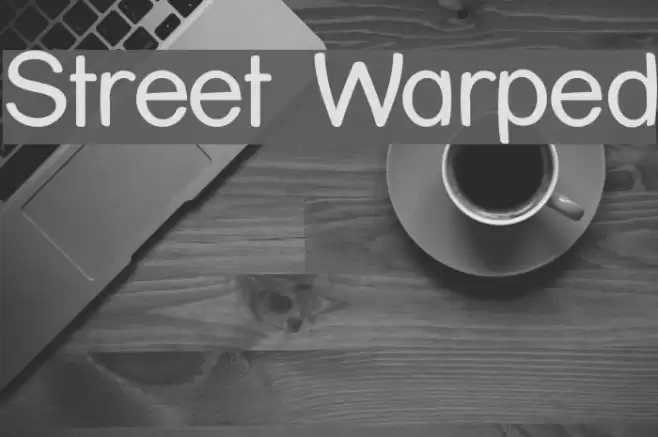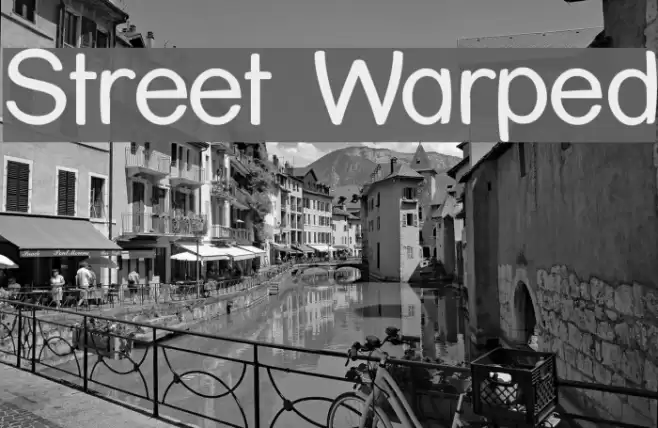
Street Warped Font
Street Warped Description
This font features a playful and rounded style, characterized by smooth curves and a friendly appearance. The letters are evenly spaced, providing a clean and approachable look. The uppercase and lowercase letters maintain a consistent design, with rounded edges and a uniform stroke width. The numerals and special characters follow the same aesthetic, ensuring a cohesive appearance across all characters. This font is versatile and can be used in various design projects that require a casual and inviting feel.
A playful, rounded font with smooth curves and a friendly appearance from Uncategorized fonts.
- Proposed Projects: Ideal for children's books, casual branding, playful posters, and social media graphics.
- Overall Style: Casual